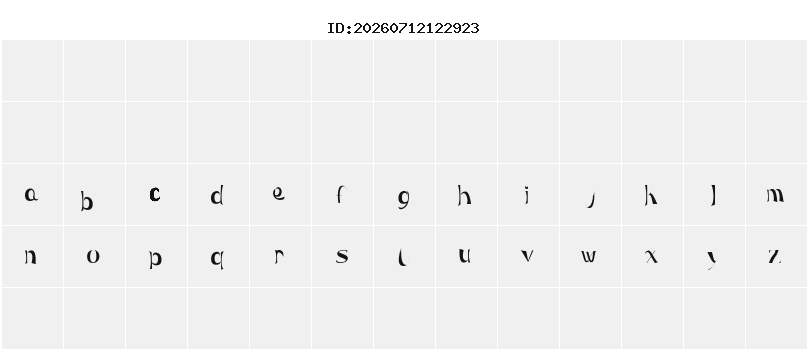
Maera Preview
• Font Name: Maera
• Full Font Name: MaeraRegular
• PostScript Name: Maera
About Maera.ttf
Maera.ttf is a modern, elegant sans-serif font designed for ultimate readability and visual harmony. Perfect for branding, headlines, web design, and print materials.